Urdu calligraphy is more than just an art of writing; it is a way of bringing your words to life in a holistic way. Urdu script emerged in the Mughal era in the subcontinent and came into existence from blending Arabic and Persian calligraphy. Famous calligraphers like Mirza Abdullah Shafi and Noor-ud-Din Ansari carefully refined the Nastaliq and Naskh styles, giving them a unique elegance and grace. For centuries now, more and more enthusiastic calligraphers, with their own unique sense of art, have added more to its riches while clinging to its traditional heritage. Art has no bounds; with the deep, rich roots of traditional scripting languages, these names have given us a new and refined form of calligraphy. These Urdu calligraphic artists use innovative techniques and themes to depict social issues, personal narratives, and modern perspectives. Today, we are going to talk about these esteemed Urdu Calligraphers who provided the new basis for modern Calligraphy. Learn more about 8 notable Urdu Fonts Designer, who revive Urdu digitally.
Here, we have curated the list of the best Urdu calligraphers who have shaped the way of modern calligraphy with their innovative techniques and stylistic approaches.
| Sr. | Name | Contribution / Work |
|---|---|---|
| 1 | Muhammad Qasim Malik | Military officer and calligrapher, held two exhibitions |
| 2 | Sadequain | Renowned artist known for his expressive works incorporating calligraphy |
| 3 | Shafiq-Uz-Zaman Khan | Famous calligrapher and head of restoring art at Masjid an-Nabawi, known for Arabic calligraphy |
| 4 | Mirza Ahmad Jamil | Developed the Noori style of Nastaliq script |
| 5 | Rasheed Butt | Active since 1961, worked in various styles including Qur'anic and hadith texts |
| 6 | Askari Mian Irani | Painter, also known for his stamp designs |
| 7 | Anwar Shemza | Artist and writer, explored calligraphy despite being better known for painting |
| 8 | Saeed Ahmad Bodla | Artist and calligrapher |
| 9 | Syed Nafees al-Hussaini | Calligrapher, Islamic scholar, poet, and spiritual figure |
| 10 | Khurshid Gohar Qalam | Author of 18 calligraphy books, works displayed in prestigious museums |
| 11 | Raaz Nathanshahi | Artist, calligrapher, writer, and poet |
| 12 | Jimmy Engineer | Artist, social worker, philanthropist, and stamp designer |
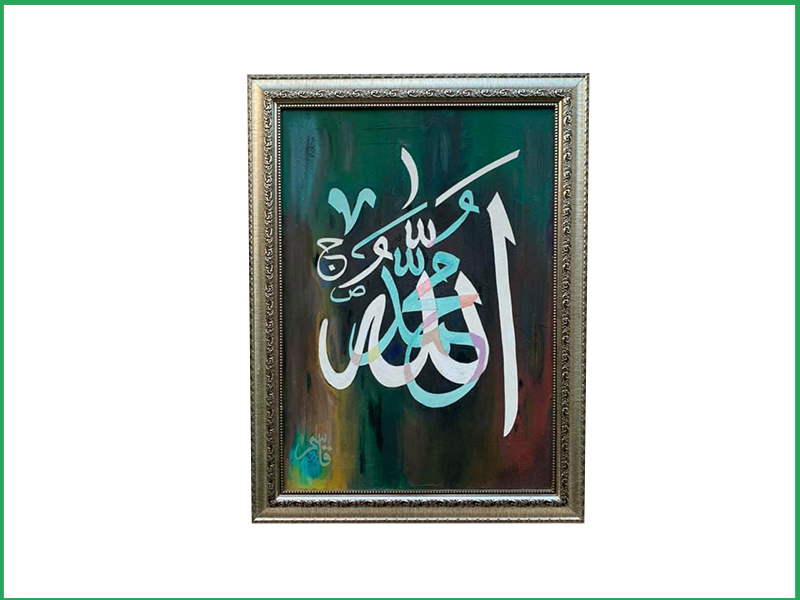
Col Qasim Malik born in 1957, is a Pakistani soldier and talented calligrapher who has held two successful calligraphy exhibitions in Islamabad. Even though he had no formal training in calligraphy, he started off with oil paintings and eventually mastered in scenic paintings considered masterpieces. He then shifted his focus to calligraphy and became known for producing modern masterpieces on hardboard with oil paints, especially verses from the Quran in Khat-e-Suls. His unique painting style has impressed many artists and calligraphers and motivated them to pursue his legacy of combining modern techniques with traditional Muslim art. Col Qasim's method of painting, where he first paints the background and then adds Quranic verses, shows his modern approach to calligraphy. His exhibitions have been inaugurated by dignitaries like Pervez Musharraf, and his work has even been featured in the Faisal Mosque. Despite not pursuing art full-time, Col Qasim is recognized as one of Pakistan's finest calligraphers.
| Category | Information |
| Name | Colonel Muhammad Qasim Malik S.I.(M) |
| Nationality | Pakistani |
| Occupation | Military & Calligrapher |
| Notable Events | Held two calligraphy exhibitions, first inaugurated by Pervez Musharraf |
Syed Sadequain Ahmed Naqvi, also known as Sadequain Naqqash, was a talented Pakistani artist and poet. His main focus was calligraphy and painting. He is highly regarded in Pakistan for his exceptional skills, having created around 15000 paintings and receiving all four civilian awards from the country. His calligraphic style was amazing and part of the broader Islamic art movement of the 1950s known as the Hurufiyya movement, where artists combined traditional calligraphy with contemporary art. Sadequain's work transformed calligraphy into a mainstream art form in Pakistan, influencing many modern-time artists who followed in his footsteps. He painted classical literature and illustrated works by many writers such as Albert Camus. He perfectly showed his blend of realism and lyricism through his art. Sadequain was known for his large-scale murals in public buildings as a symbol of the collective labor of humanity. Sometimes, he also gave away his art to his admirers and charities. He saw himself as more than an artist but someone who have the ability to paint the hidden depths of life and society.
| Category | Information |
| Name | Syed Sadequain Ahmed Naqvi |
| Dates | 1930 - 1987 |
| Nationality | Pakistani |
| Occupation | Artist |
| Titles | Tamgha-e-Imtiaz, Pride of Performance, Sitara-e-Imtiaz |
| Style | Known for expressive works incorporating calligraphy |
Ustad Shafiq-Uz-Zaman Khan is a well-known Pakistani Urdu calligraphic artist, recognized for his restoring art at Masjid an-Nabawi. He was the head of this project at the holiest Muslim site in the world. He was born on 2nd of November 1956 in Rawalpindi; however, his upbringing was in Karachi, Pakistan. His art and work style are inspired by a renowned Turkish calligrapher, Hamid Aytaç. He won many prizes and accolades for his intense and highly expressive calligraphy. He won first prize in the First International Arabic Calligraphy Competition held in 2012. His art is widely recognized by the locals which led him to collect Pride of Performance in Pakistan in 2014. This is one of the highly respected awards in Pakistan. He was not only recognized on the National level but also brought pride to his Nation on the international level. Shafiq-Uz-Zaman Khan also won 1st prize in the First International Arabic Calligraphy Competition which was organized in Makkah, Saudi Arabia. He is famous for Arabic calligraphy Thuluth.
| Category | Information |
| Name | Ustad Shafiq-Uz-Zaman Khan |
| Nationality | Pakistani |
| Occupation | Calligrapher |
| Notable Position | Head of restoring art at Masjid an-Nabawi |
| Style | Famous for Arabic calligraphy |
Another celebrated Pakistani calligrapher, Ahmad Mirza Jamil, is best remembered for his creation of the Noori style of Nastaliq, a significant milestone in Urdu typography. Born on February 21, 1921, in Karachi, Pakistan, Jamil introduced the Noori Nastaliq font as a digital typeface in 1981, changing the norms in Urdu composing. His groundbreaking work earned him prestigious awards, including the Tamgha-e-Imtiaz from the Government of Pakistan in 1982. In his book "Revolution in Urdu Composing," he expressed his modern ideas about a future where Urdu authors can create and print their books swiftly and easily, free from the constraints of traditional calligraphy, without relying on manual calligraphers. His artistic efforts and contributions made him worthy of getting an honorary Doctor of Letters degree from the University of Karachi. He passed away on February 17, 2014, leaving behind a lasting legacy in Urdu, not in Urdu calligraphy but also in typography.
| Category | Information |
| Name | Ahmad Mirza Jamil |
| Dates | 1921 - 2014 |
| Nationality | Pakistani |
| Occupation | Artist & Calligrapher |
| Style | Developed and known for the Noori style of Nastaliq script |
| Legacy | Recognized for his unique script contribution |